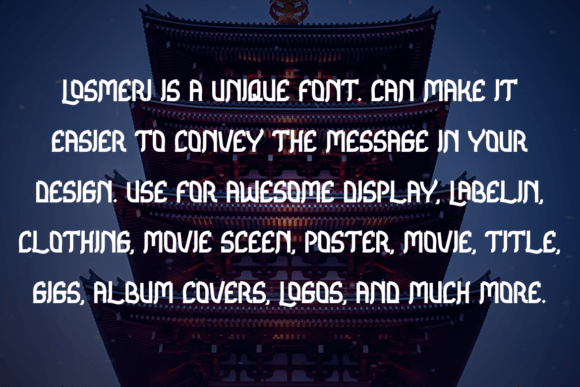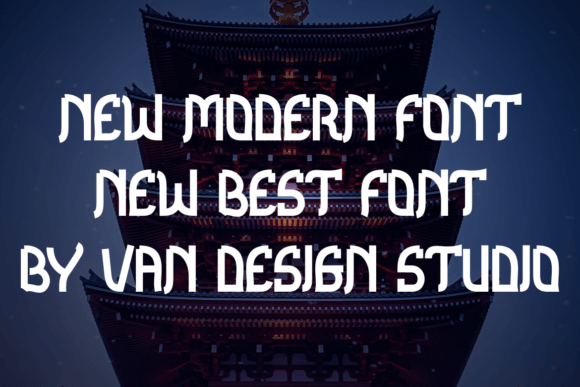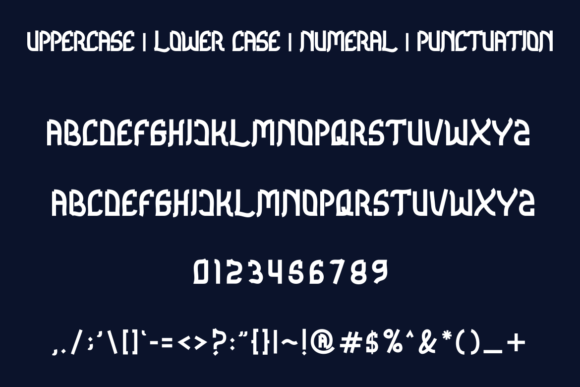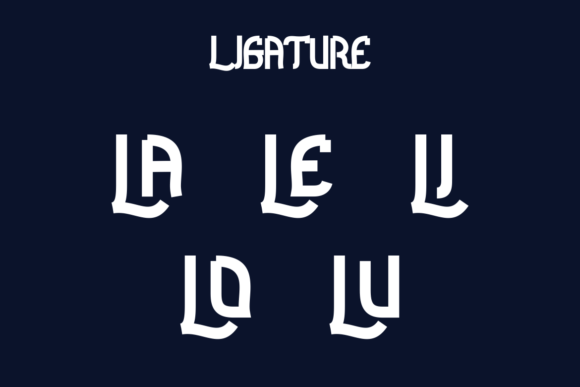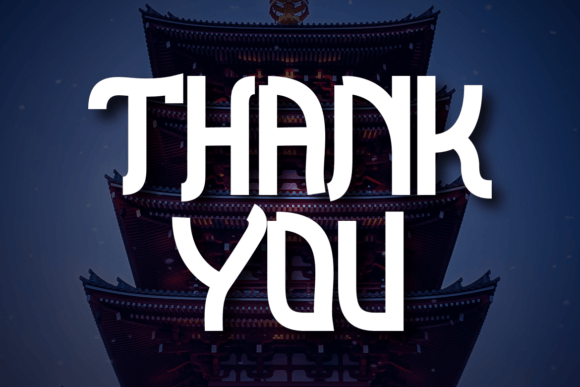
Introduction to Losmeri Font
Have you ever stared at a blank canvas, searching for the perfect font to bring your creative vision to life? It’s that moment when inspiration strikes, and you know exactly what you need to elevate your design. For many designers, this moment is a quest to find that elusive font that perfectly captures the essence of their project. Enter the Losmeri Font, a game-changing sans serif font designed to take your creative ideas to new heights.
What sets the Losmeri Font apart is its masterful design, crafted to provide a high-quality design resource that’s both versatile and visually striking. Whether you’re working on a personal project or collaborating with a team, this font is sure to become a trusted companion in your creative journey.
Key Features of Losmeri Font
- High-quality design resource ideal for creative projects, offering a unique and stylish touch.
- Unique characteristics include its modern, elegant design and wide range of applications, from logos to typography.
Honest Review: Losmeri Font
I recently stumbled upon the Losmeri Font, and I must say it’s been a game-changer for my creative projects. The high quality design and sleek aesthetic make it a perfect addition to any design resource.
- ✨ Customizable font styles: The Losmeri Font offers a range of styles, from casual to formal, making it easy to adapt to any project.
- ✨ Transparent background: The font’s transparent background allows for seamless integration with any design, giving me the freedom to experiment with different layouts.
While the Losmeri Font is an excellent design resource, I did encounter a few limitations.
Overall, I’m impressed with the Losmeri Font’s versatility and high quality design. It’s a great addition to any designer’s toolkit, and I highly recommend it for any creative project.
Common Use Cases for the Losmeri Font
The Losmeri Font is ideal for various creative projects, including logos, business cards, and marketing materials. Its high-quality design and transparent background make it a versatile resource for designers and non-designers alike.